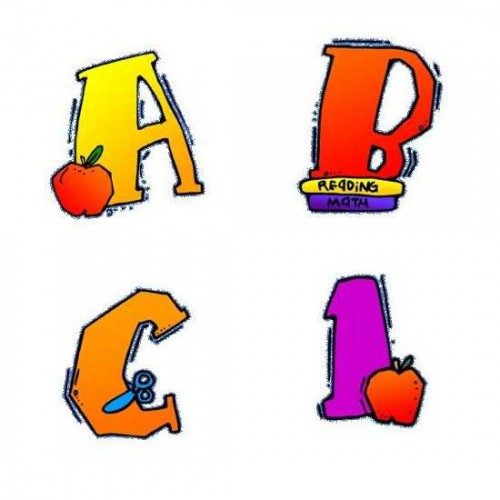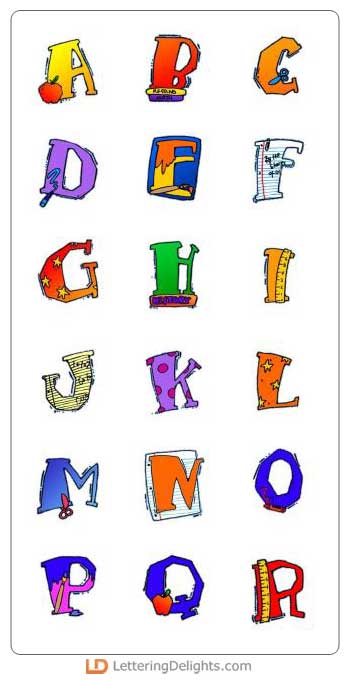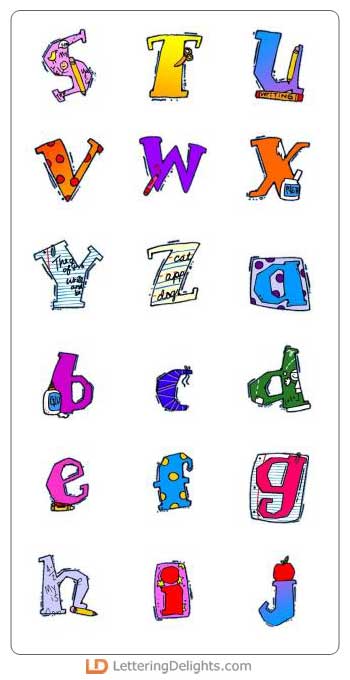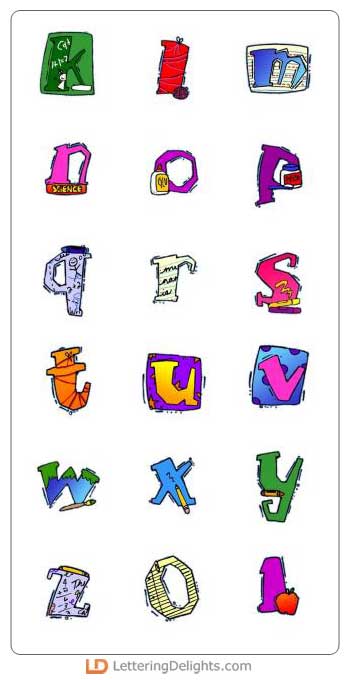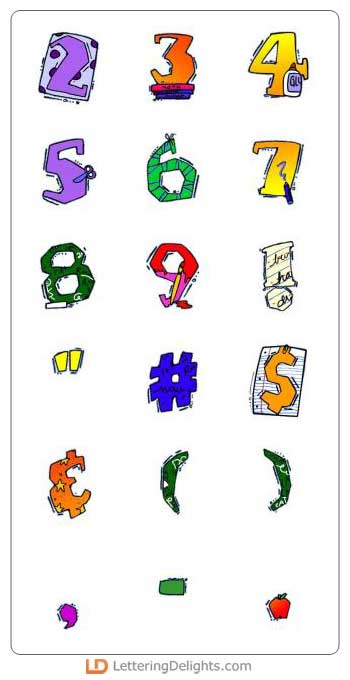
It's back to school time with books, pencils, paper, scissors, and pens. This whimsical alphabet reminds you of the best part of going back to school--buying school supplies.